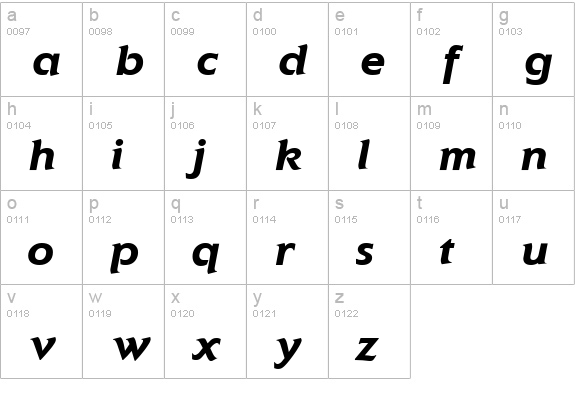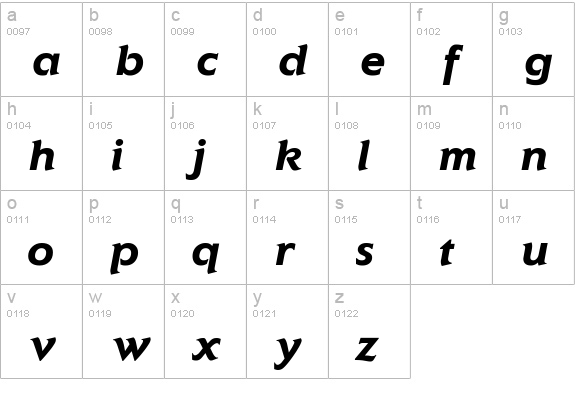
Elan Bold Italic Font Details
Elan Bold Italic is a strong, high-contrast, italic variant in the Elan typeface family \xE2\x80\x94 well suited to headlines, attention-grabbing titles, and strong calls-to-action.
The Elan Bold Italic font exudes a sense of sophistication and elegance with its sleek, modern design. Its bold yet graceful strokes make it the perfect choice for projects that require a touch of sophistication and creativity. This versatile font is ideal for a wide range of design applications, from branding and marketing materials to invitations and social media graphics. What sets the Elan Bold Italic font apart is not just its striking appearance, but also the fact that it is available for free download at FontsMarket.com. This means that you can easily access this stylish font and use it in your projects without any cost. Whether you are a professional designer looking to enhance your work or a hobbyist seeking to add a unique flair to your creations, the Elan Bold Italic font is a valuable addition to your font collection. Download it today and elevate your designs with this exquisite typeface.